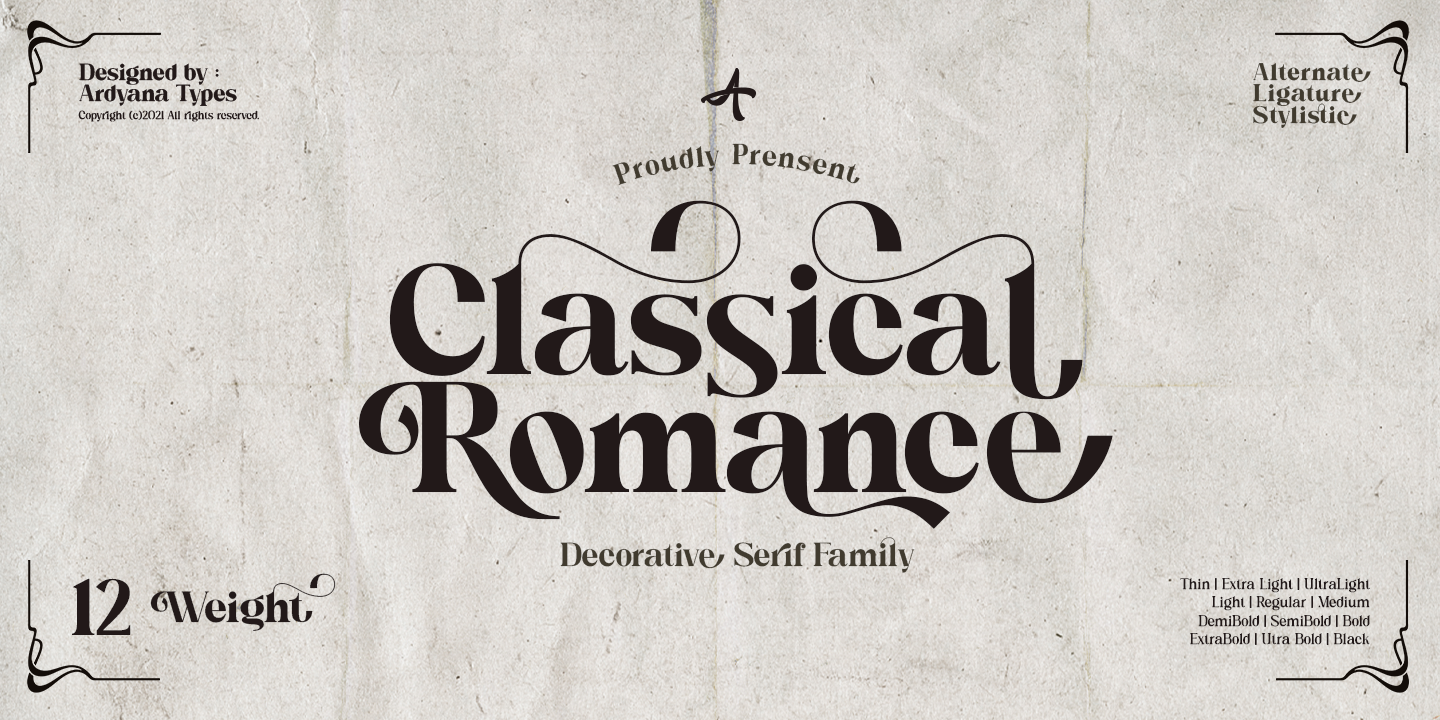
Classical Romance Font is perfect for luxury wedding venue branding, elegant romance novel publishing, sophisticated love letter stationery, upscale anniversary celebration marketing, refined bridal boutique communications, timeless engagement photography materials, classical music concert promotions, and enchanting romantic getaway campaigns. This exquisite typeface excels in applications where timeless romance, classical elegance, and eternal love are essential for connecting with audiences who appreciate the enduring beauty of romantic tradition and the sophisticated grace of classical love stories.
What makes Classical Romance Font so exciting is its enchanting embodiment of timeless romantic elegance and classical love tradition that perfectly captures the essence of eternal devotion and the sublime beauty of romantic literature where passionate hearts and poetic souls discover the transformative power of true love through generations of romantic heritage. The font features graceful, flowing letterforms with romantic characteristics that evoke handwritten love letters and classical poetry manuscripts. Its elegant character conveys passion, refinement, and eternal devotion - essential qualities for brands serving luxury romance markets, wedding industries, and audiences who appreciate classical literature, romantic traditions, and the timeless elegance of sophisticated love celebrations and romantic experiences that honor the classical heritage of romantic expression.
The Classical Romance Font family includes multiple elegant weights and romance-inspired variations that enhance its romantic appeal. Some versions feature delicate flourishes and ornamental elements that reflect classical romantic calligraphy and love letter traditions, while others provide refined variants that maintain the font's passionate character with enhanced readability for professional wedding applications and commercial romantic service communications.
Whether you're creating branding for romantic services, designing materials for wedding companies, or developing marketing campaigns for love celebration experiences, Classical Romance Font Free Download provides the romantic authority your project requires. The font's classical character makes it particularly effective for brands targeting romantic audiences who appreciate timeless love, classical elegance, and the sophisticated beauty of romantic traditions and eternal devotion.
Celebrate eternal love with Classical Romance Font and enchant your brand communications with typography that honors the timeless beauty of classical romantic elegance and passionate devotion.